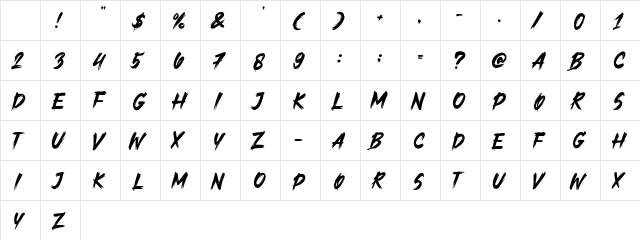
Complete Gloomy Things Regular glyph index. Displaying only characters natively supported by Gloomy Things Regular font.
Gloomy Things is a composed and adaptable typeface that performs quietly and consistently across a wide range of design contexts. Its slender proportions lend an understated elegance to any composition.